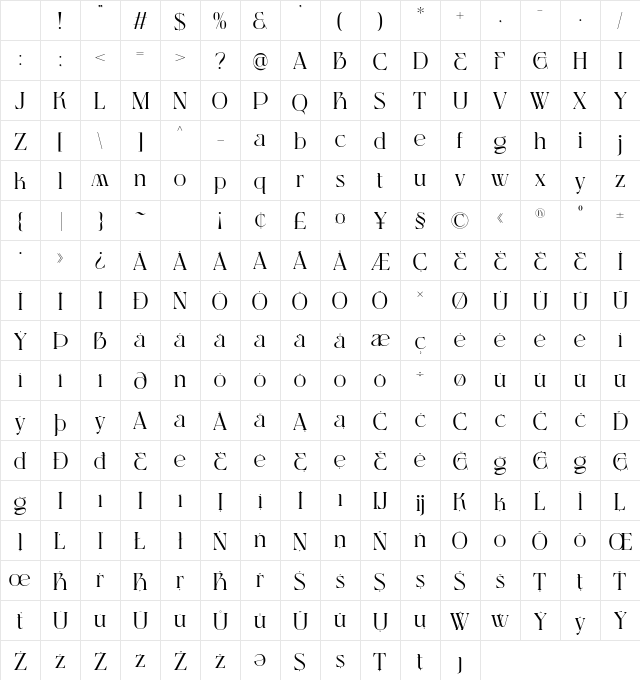
Complete Baket Fashion - Demo Version Regular glyph index. Displaying only characters natively supported by Baket Fashion - Demo Version Regular font.
Baket Fashion - Demo Version is a composed and adaptable typeface that performs quietly and consistently across a wide range of design contexts.